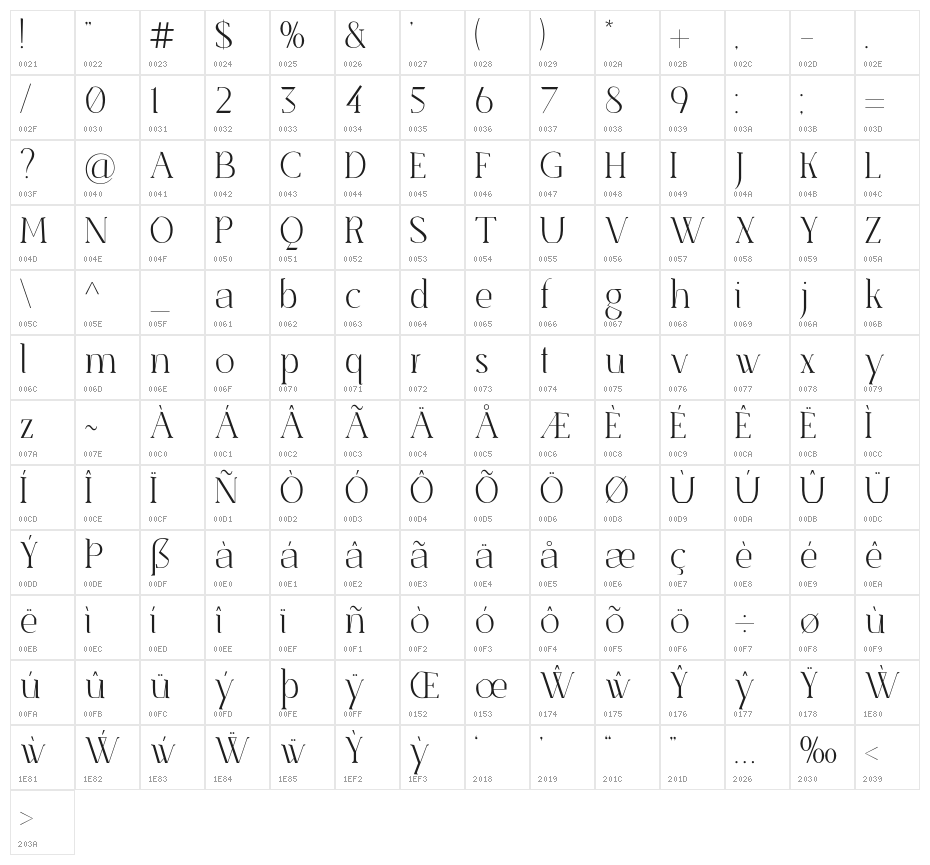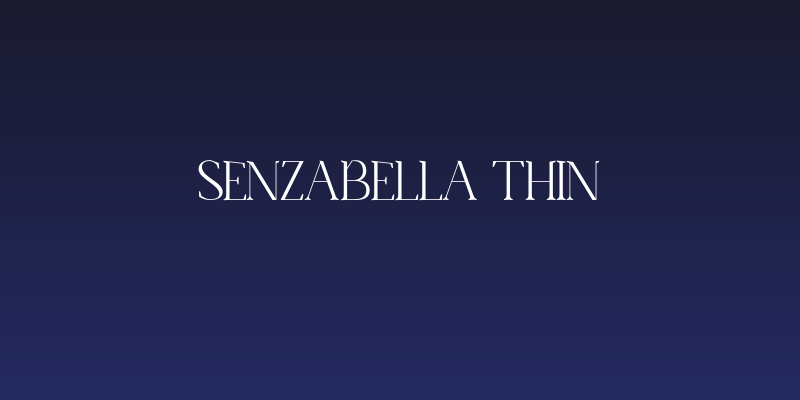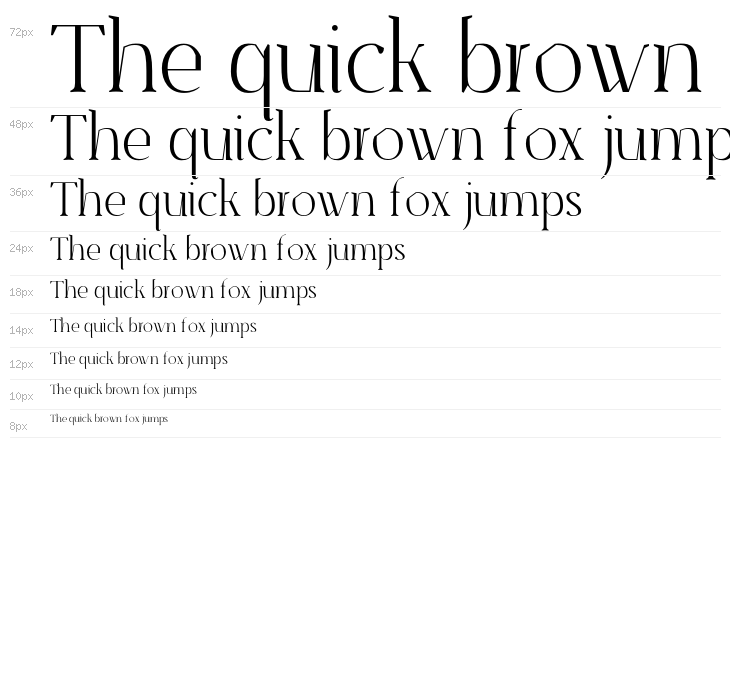
SenzaBella Thin Font
SenzaBella Thin Description
This elegant serif font features a thin, delicate structure with high contrast between thick and thin strokes. The characters exhibit a refined and sophisticated appearance, with sharp serifs and a graceful flow. The uppercase letters are tall and commanding, while the lowercase letters maintain a balanced and harmonious look. The numerals are distinct and clear, matching the overall style of the alphabet. Special characters are thoughtfully designed to complement the font's aesthetic, making it versatile for various applications.
| Proposed Projects | Ideal for luxury branding, editorial design, wedding invitations, and high-end product packaging. |